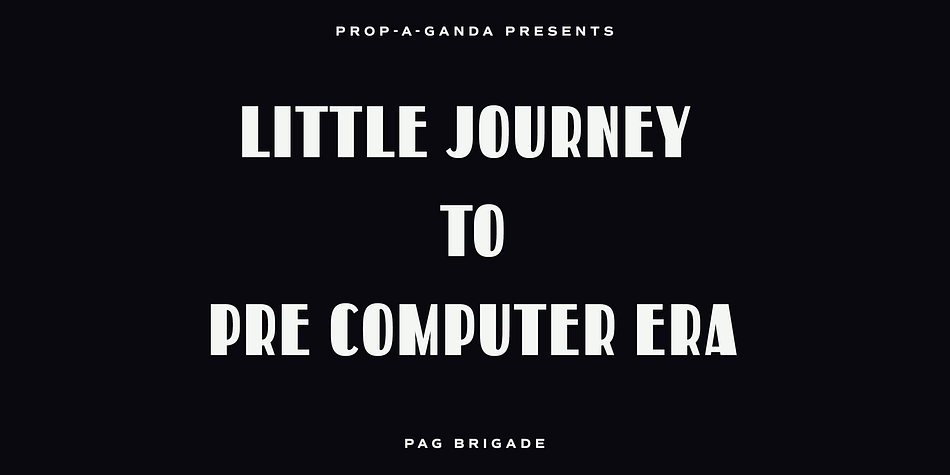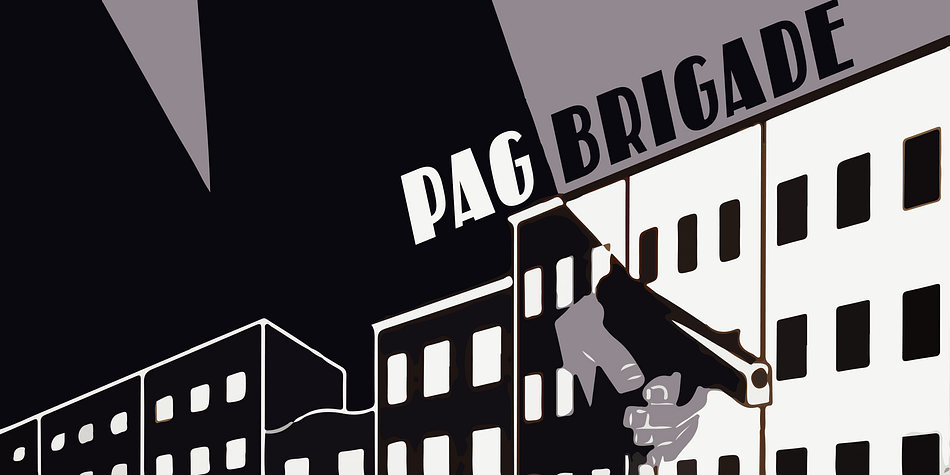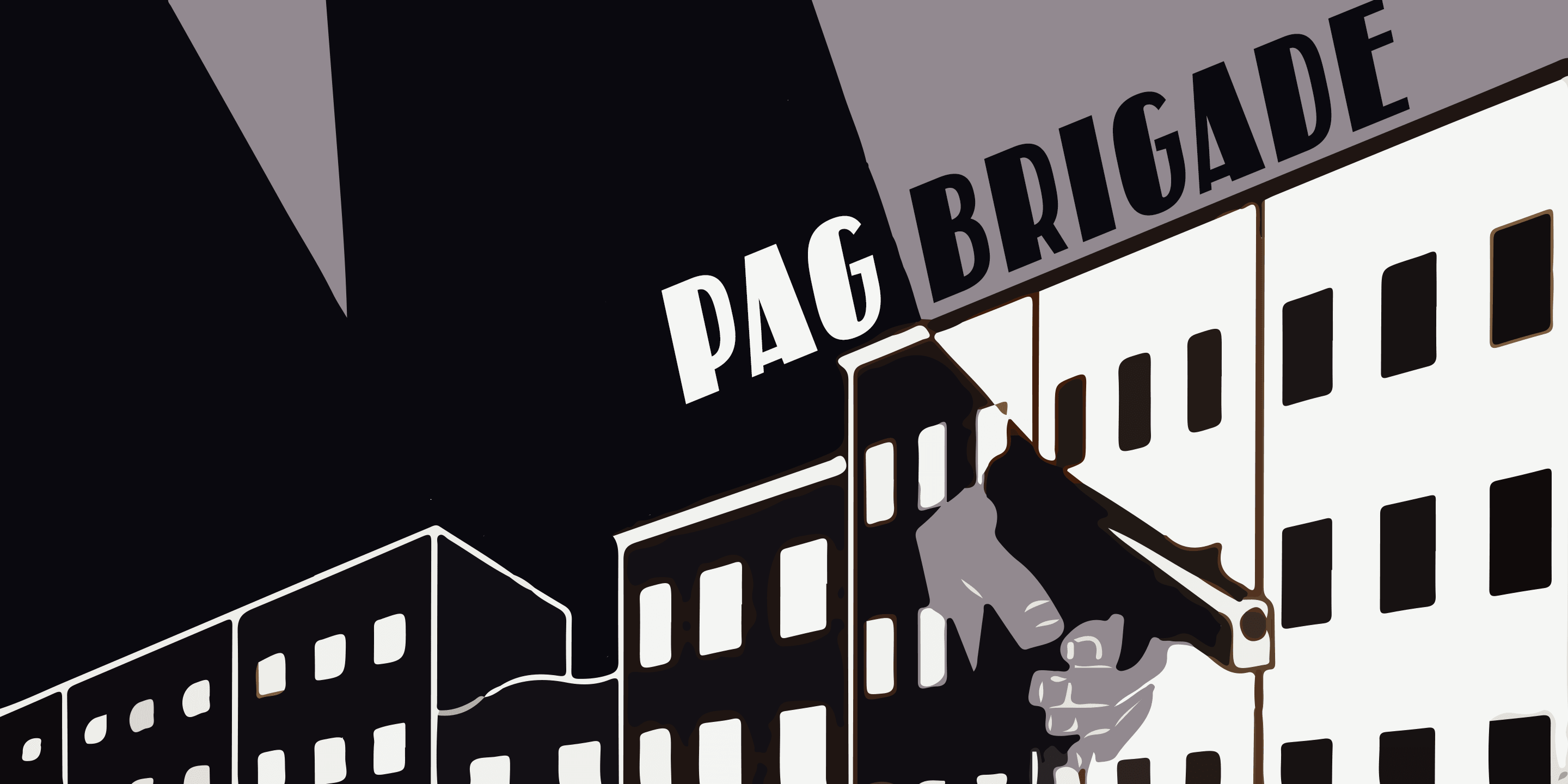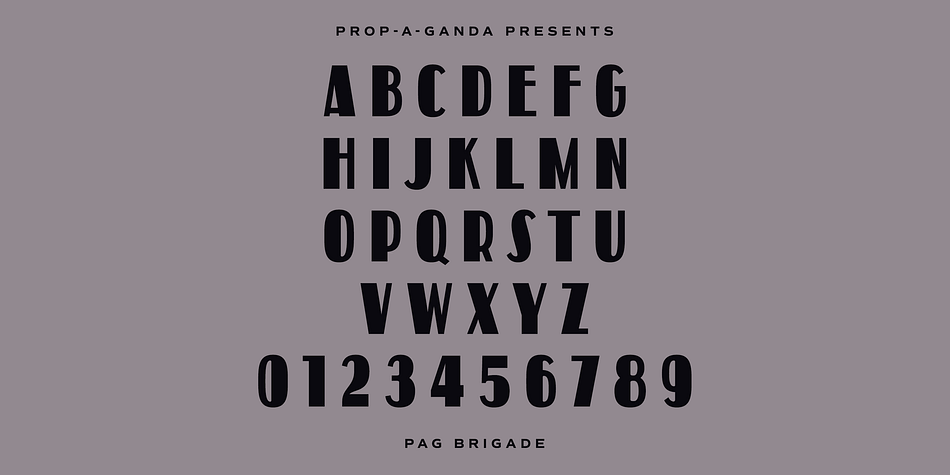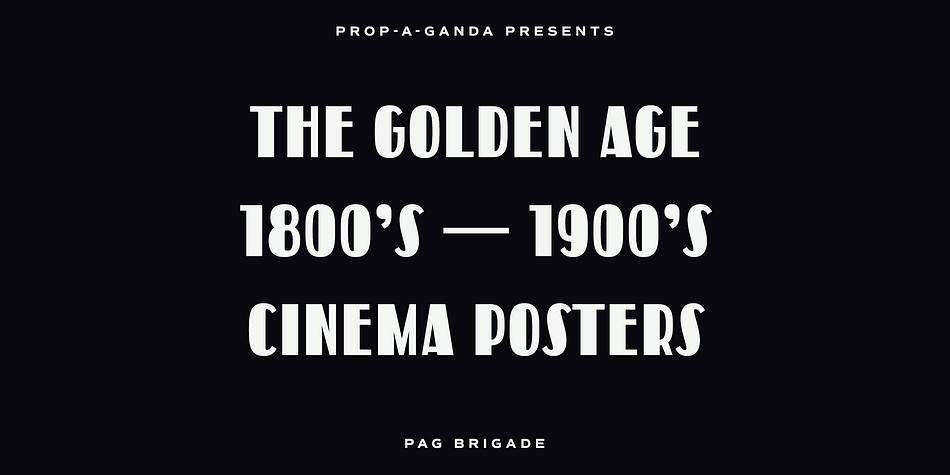
PAG Brigade is a retro font published by Dharma Type.
Prop-a-ganda(PAG) offers retro-flavored fonts inspired by lettering on retro propaganda posters, retro advertising posters, retro packages all the world over. This is perfect font for your retrospective project.
PAG Brigade is a heavy, but cute font. The contrast of bold and thin stroke left a strong impression.